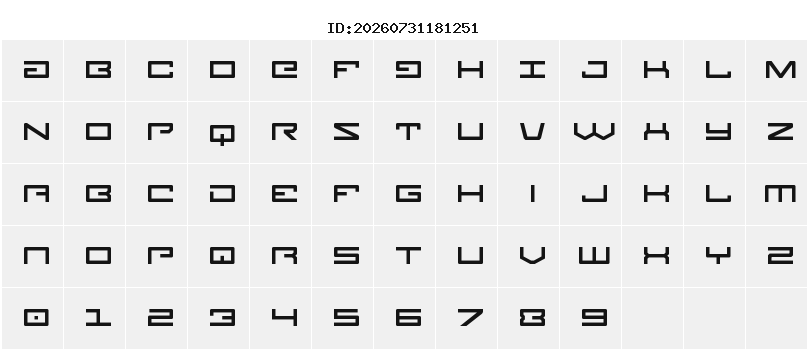
• Font Name: Legion Title
Legion Title.ttf is a modern, elegant sans-serif font designed for ultimate readability and visual harmony. Perfect for branding, headlines, web design, and print materials.